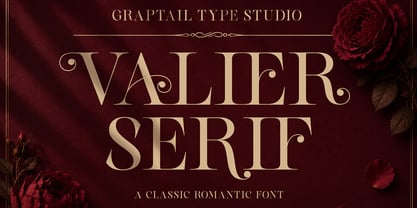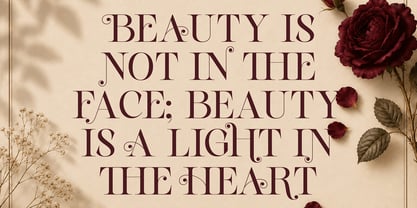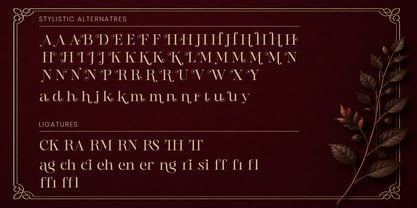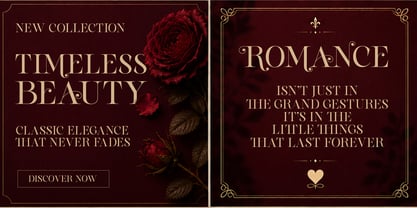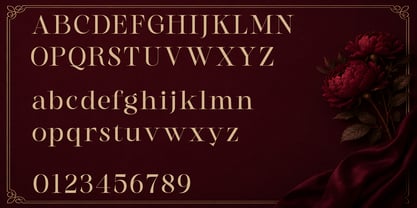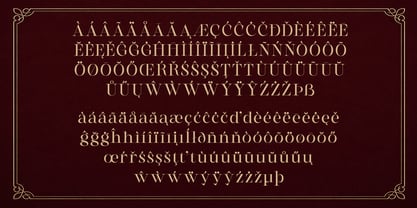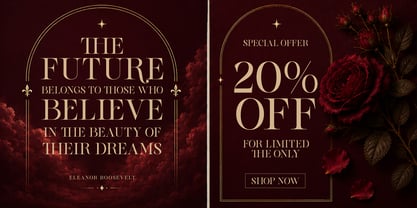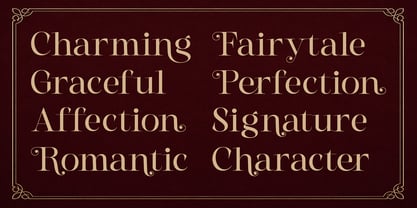
Valier
by Graptail
The Valier Font Family was designed by Teuku Deky Firnanda and published by Graptail. Valier contains 1 styles. More about this family
Valier Serif is a timeless classic serif font crafted to bring elegance, romance, and sophistication into every design. Inspired by vintage editorial typography, luxury branding, and romantic aesthetics, Valter Serif combines graceful letterforms with beautiful ligatures and stylish alternates to create a refined visual experience.
Whether you're designing wedding invitations, luxury logos, fashion editorials, packaging, social media content, or elegant quote posters, Valter Serif adds a touch of charm and distinction to your work.
Designers: Teuku Deky Firnanda
Foundry: Graptail